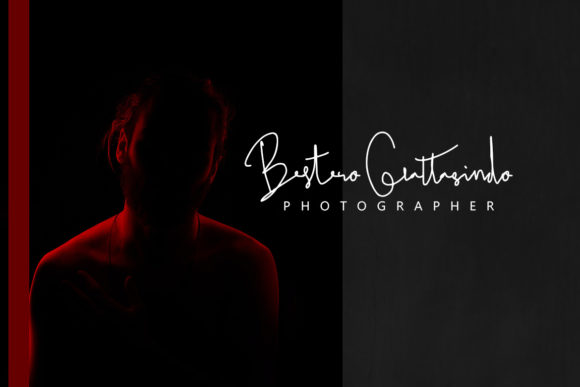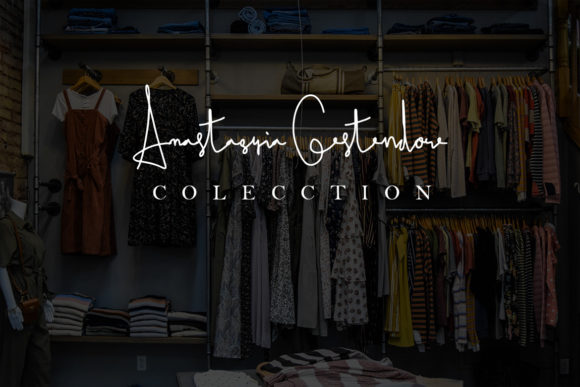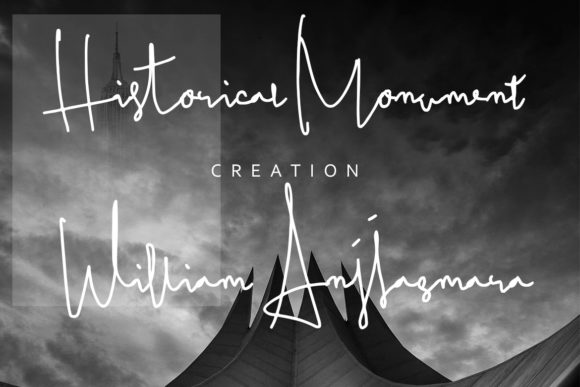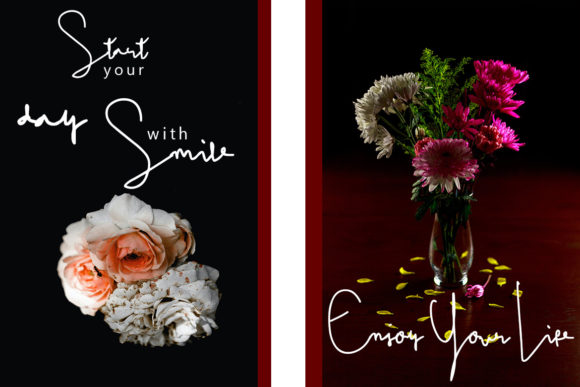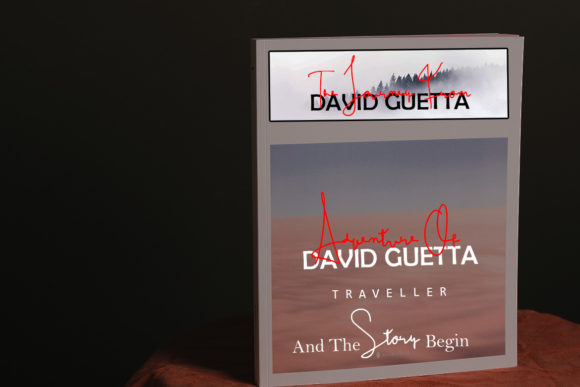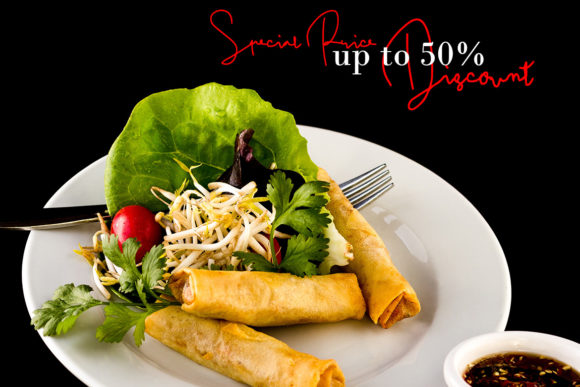
Discover the Timeless Charm of Alexandria Maigettand Font
Have you ever found yourself sitting in front of a blank page, feeling the pressure to create something truly special? It’s a moment many designers can relate to, a moment of clarity and inspiration. And then, it happens – the perfect font appears, elevating your project to new heights. For me, that font is Alexandria Maigettand, a masterfully designed handwritten font that has become a true favorite among creatives.
With its classy calligraphic influences and contemporary feel, the Alexandria Maigettand Font is the perfect addition to any design project. Its versatility and sophistication make it a valuable asset for designers looking to bring their vision to life. Whether you’re a seasoned pro or just starting out, this font is sure to become a trusted companion in your creative journey.
Alexandria Maigettand Font Key Features
- Font Family: Alexandria Maigettand is a typeface with multiple styles, including regular, bold, italic, and bold italic.
- Unique Characteristics: The font features a unique blend of classical and modern elements, with elegant lines and subtle flourishes.
Designer Review: Alexandria Maigettand Font
Overall, I found the Alexandria Maigettand Font to be a solid choice for designers looking for a unique and elegant script font. Here’s my honest review:
- The font’s intricate details and subtle flair make it perfect for adding a touch of sophistication to any design.
- It’s highly legible, even at smaller font sizes, making it suitable for body text as well as headlines.
- The font’s versatility allows it to work well in a variety of contexts, from formal invitations to casual blog posts.
- The font may not be the best choice for designs that require a bold, attention-grabbing font. Its elegance can sometimes come across as understated.
- The font’s complexity can make it difficult to work with for designers who are not experienced in handling intricate typography.
Overall, I think the Alexandria Maigettand Font is a great addition to any designer’s toolkit. While it may have some limitations, its unique charm and versatility make it a worthwhile investment for designers looking to add some personality to their work.
To get the most out of Alexandria Maigettand Font, use it for:
1. Titles and headings: The font’s elegant and sophisticated design makes it perfect for titles and headings.
2. Quotes and captions: The font’s cursive style makes it ideal for quotes and captions.
3. Branding and logos: The font’s unique design makes it perfect for branding and logos.